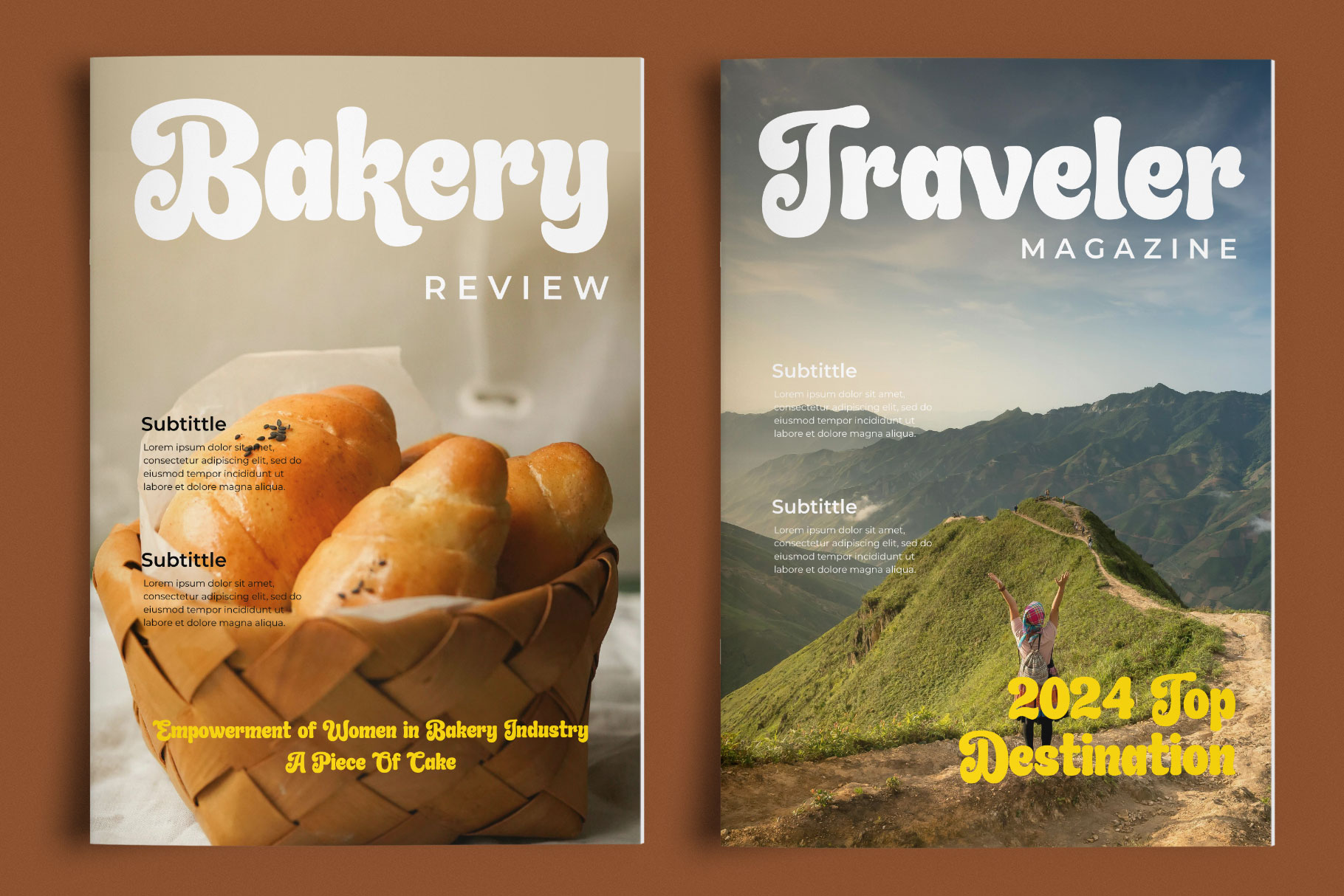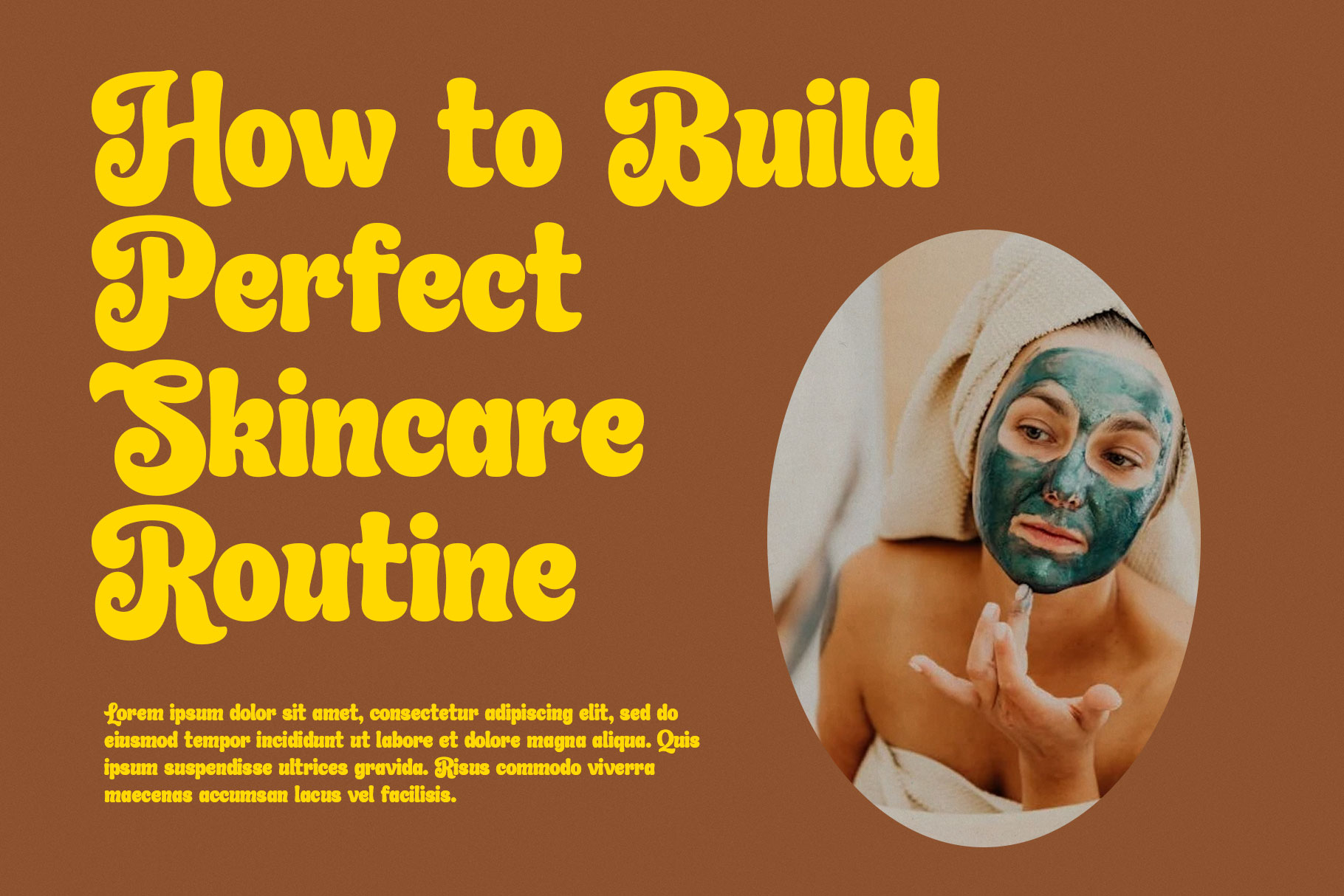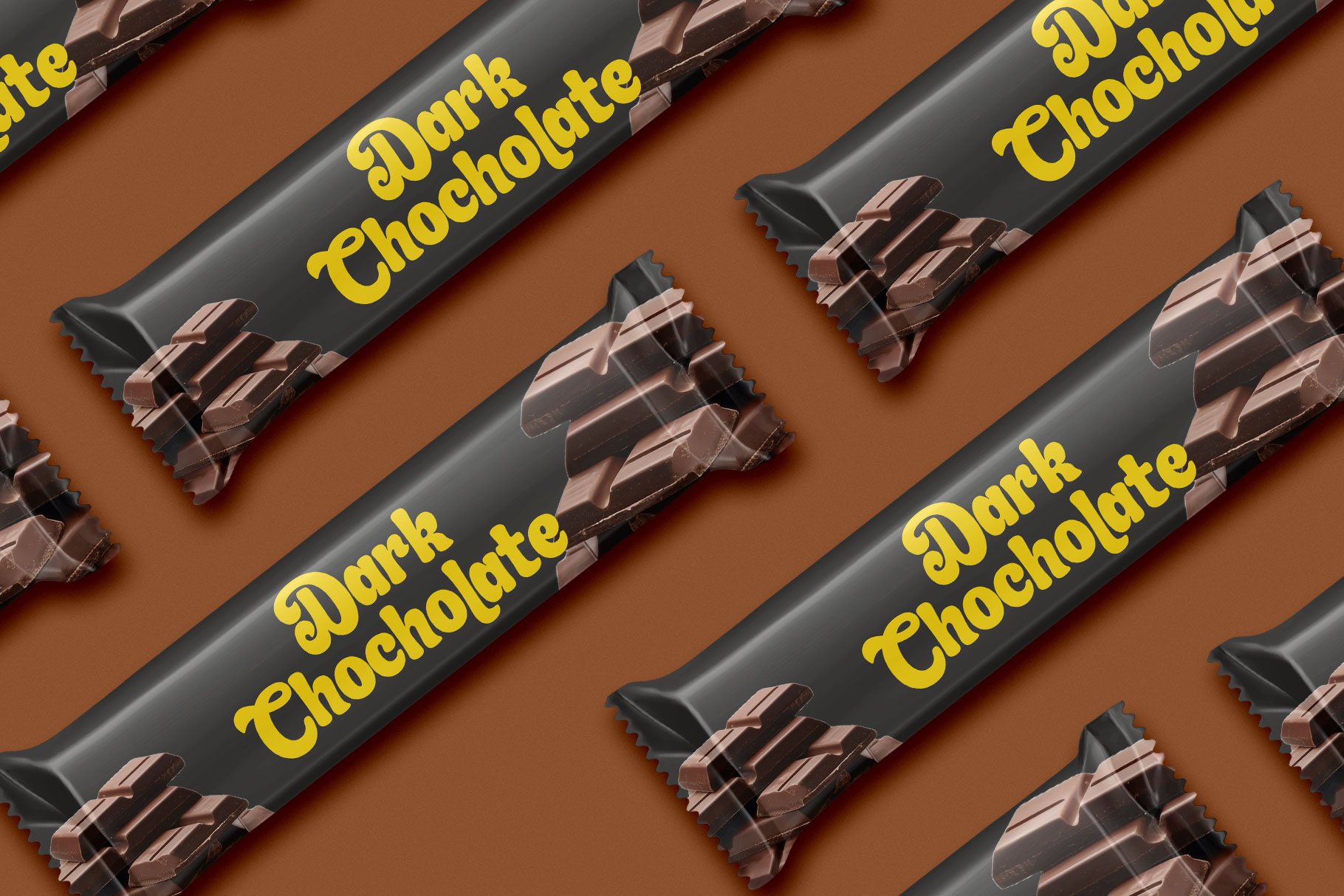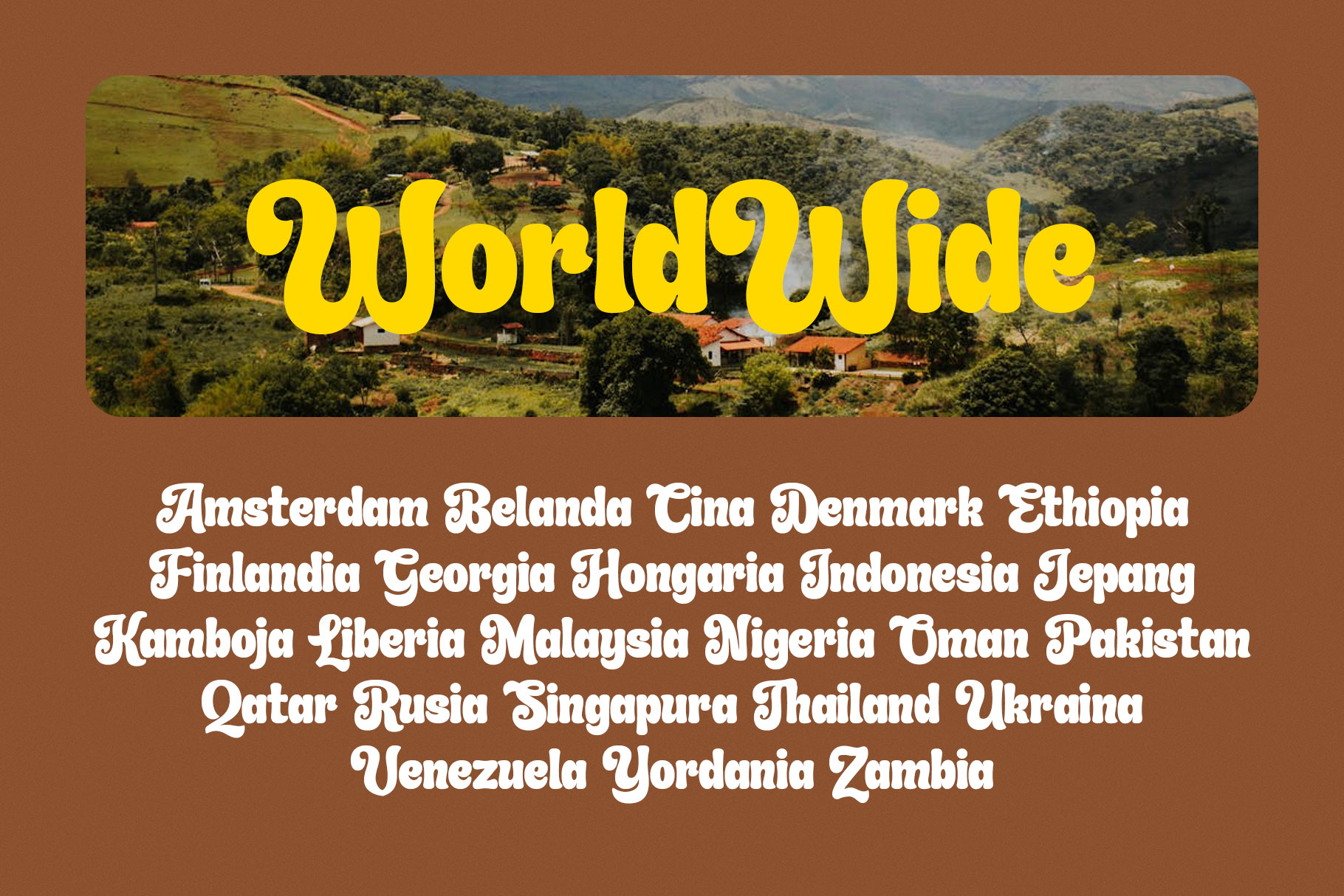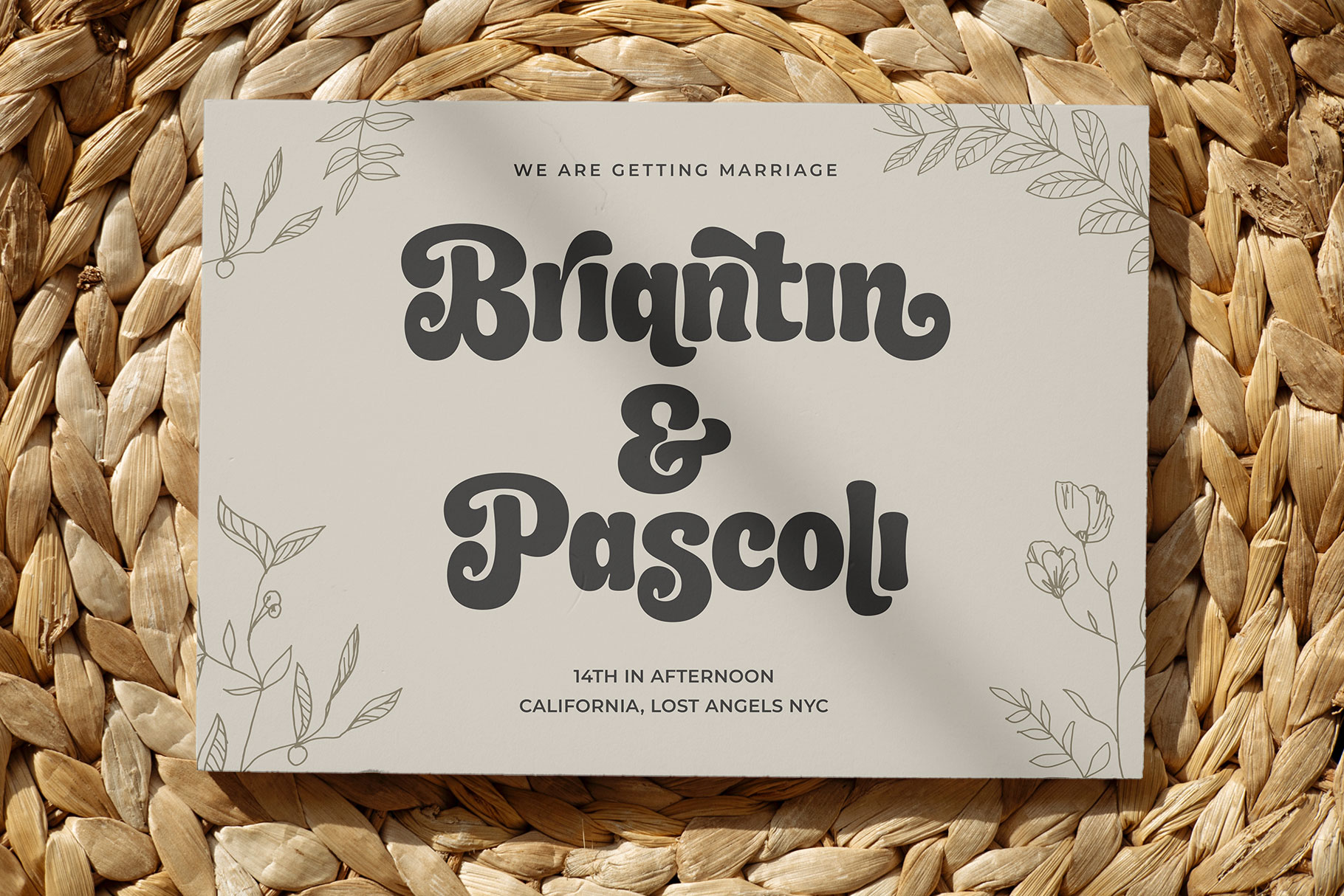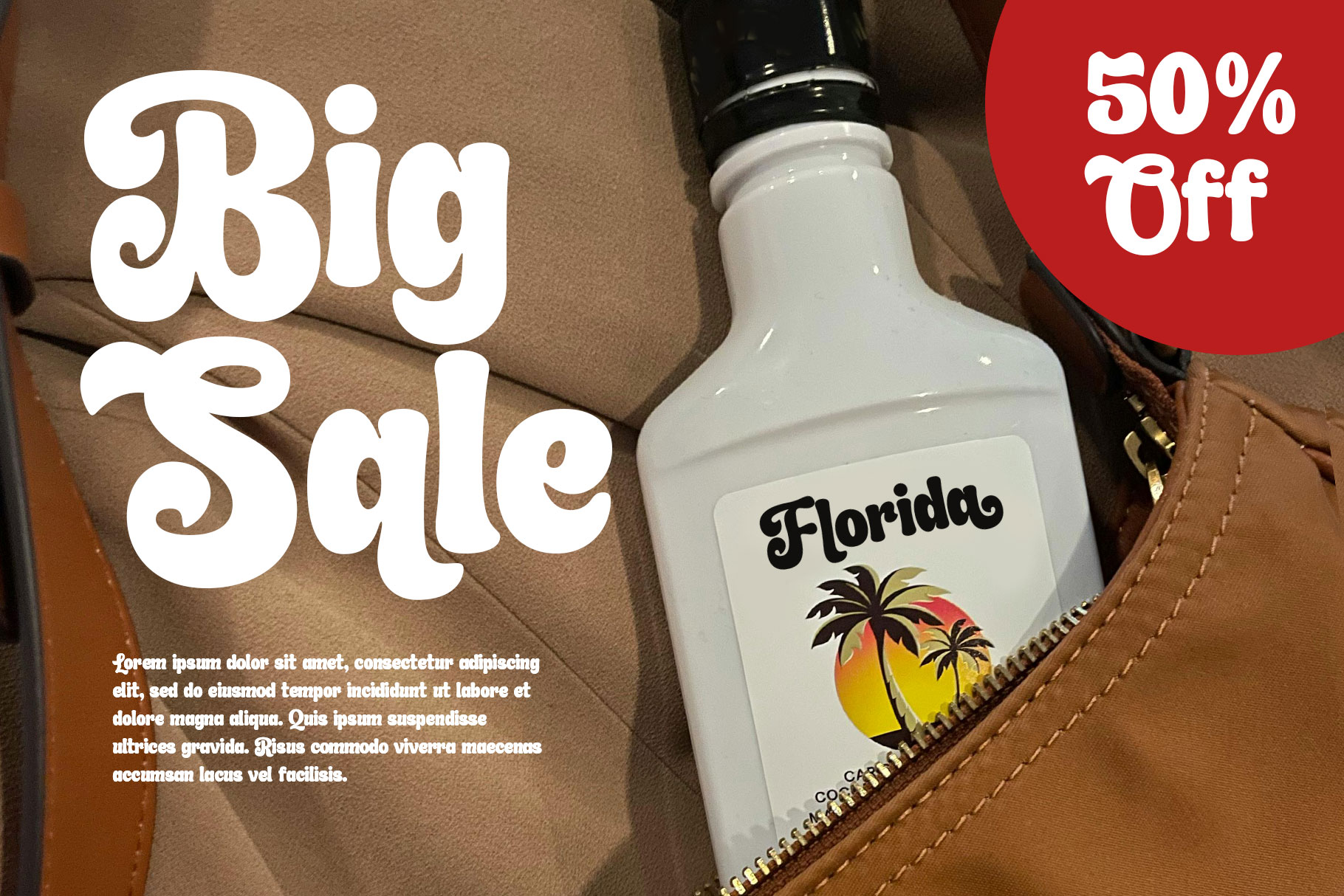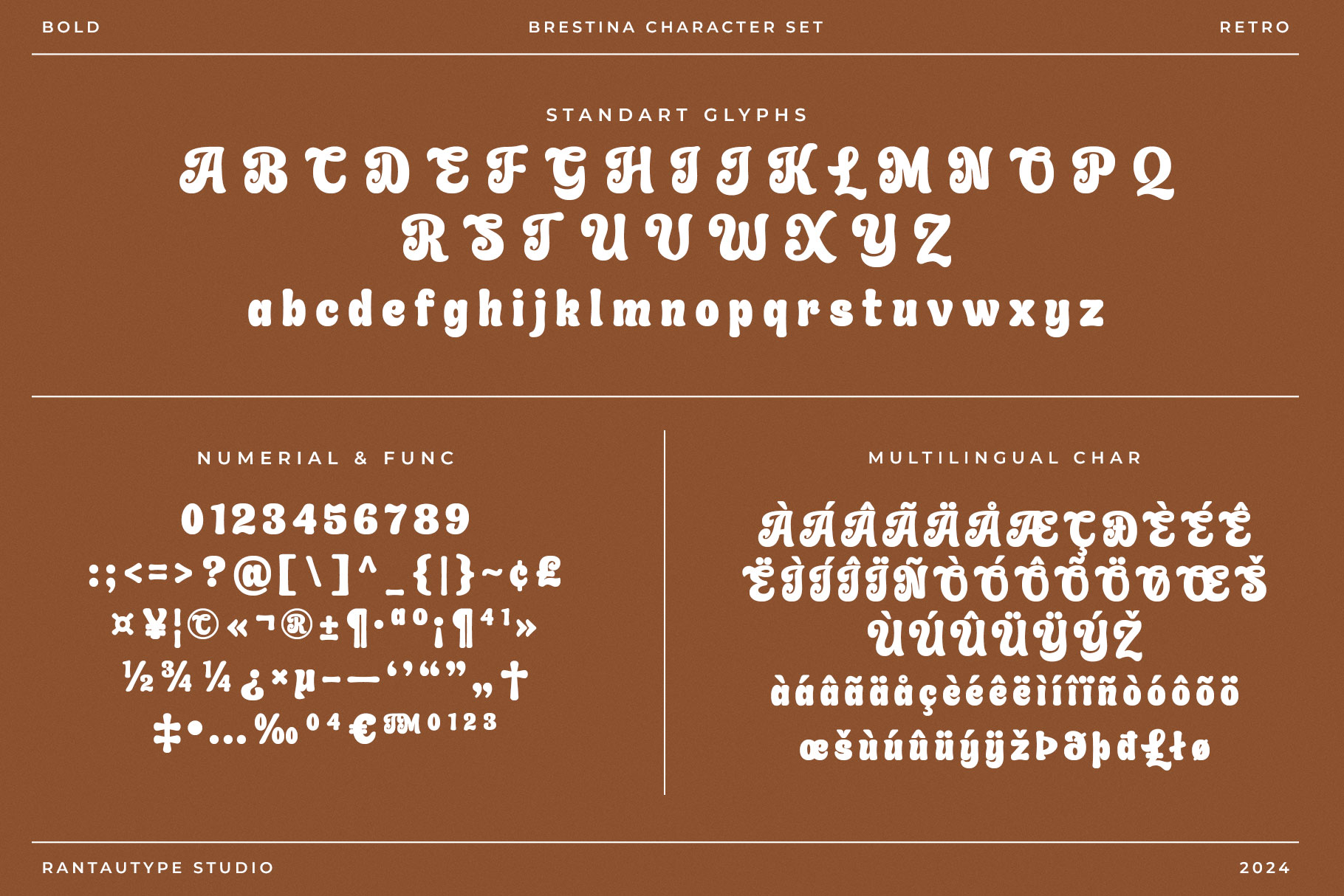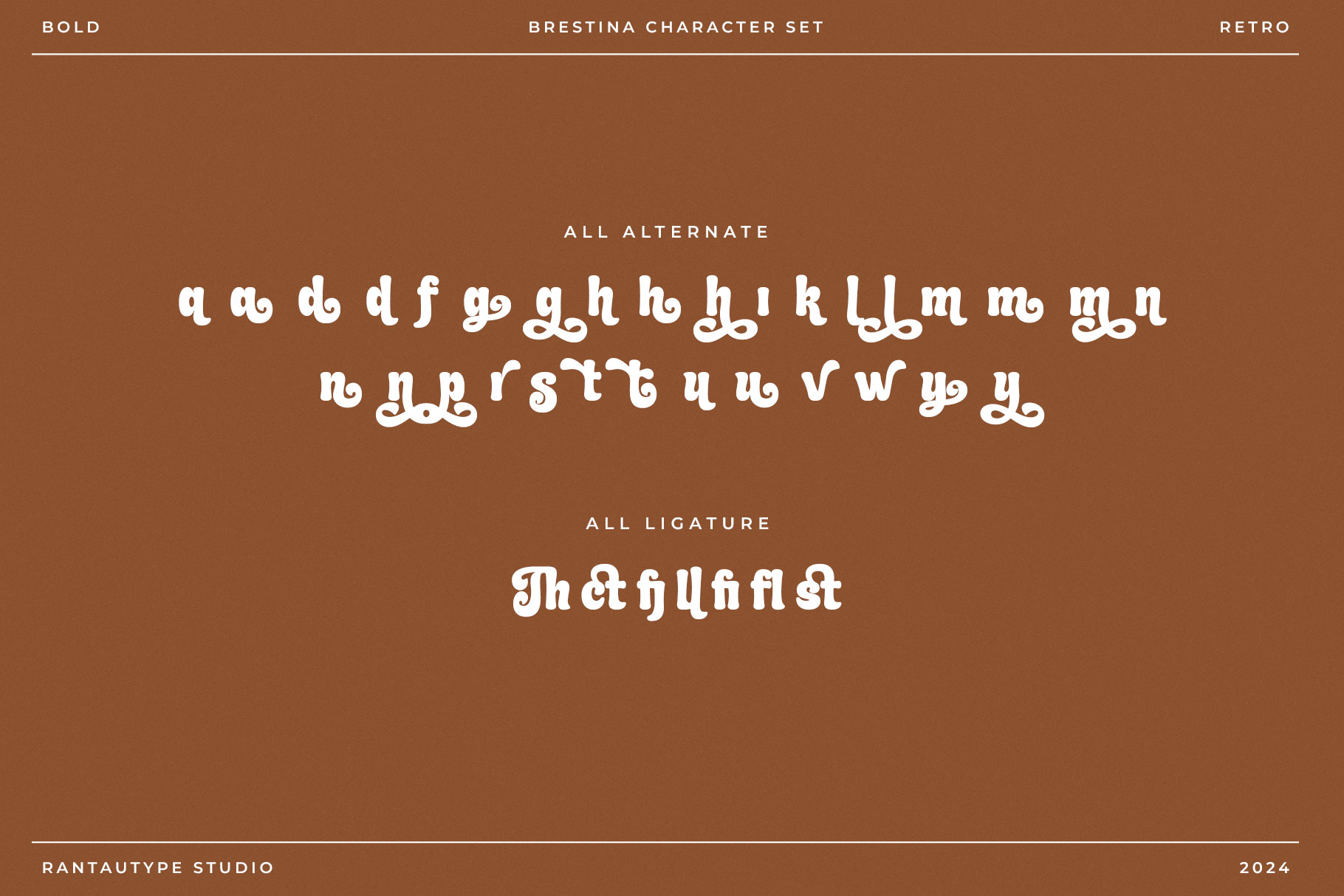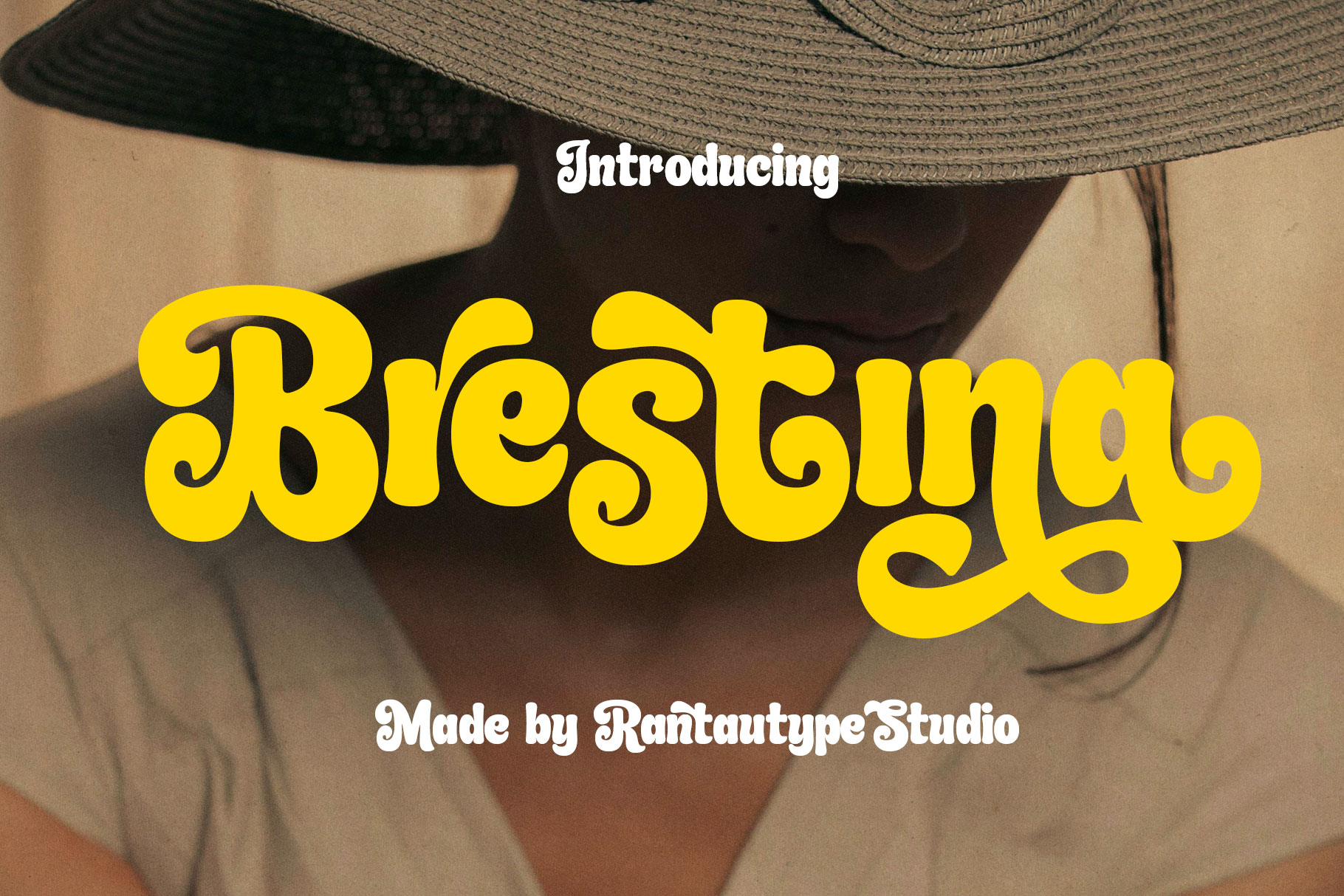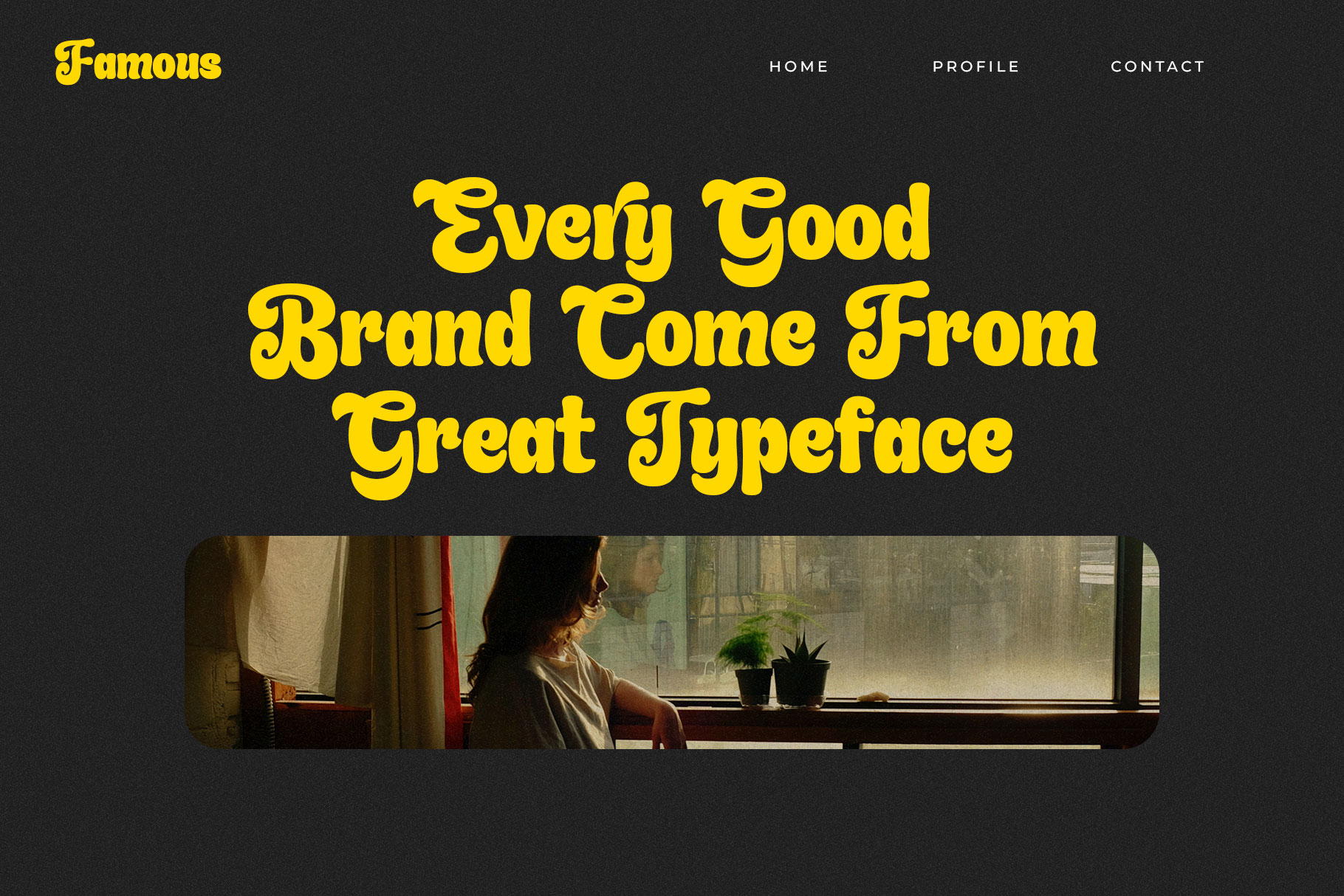
Brestina Retro Display Font
Brestina is retro font with nostalgia capture. Brestina come with rounded edge and bold character make your deseign project more playful and natural. Brestina is a perfectly choice for any creative endeavor, chic, lifestyle design such as logos, advertisements, stationery, branding project, display and magazine, invitation, corporate brand, product design, label, business project and many other project with retro touch.